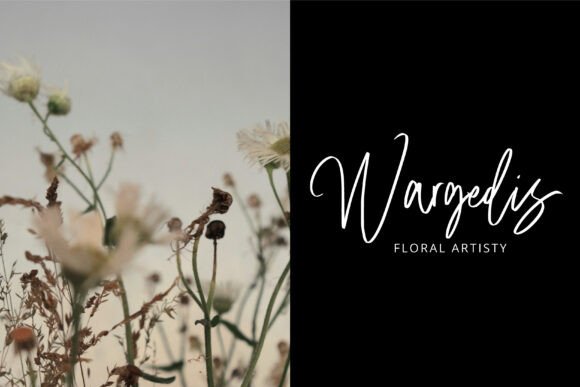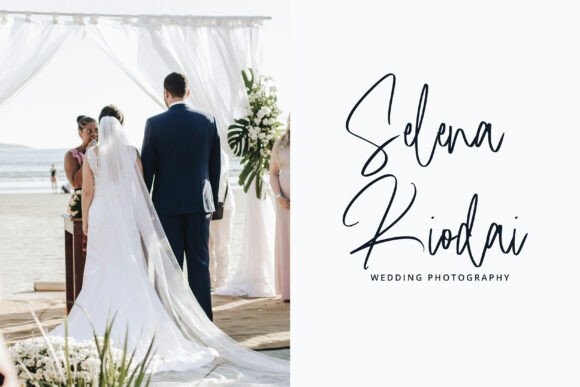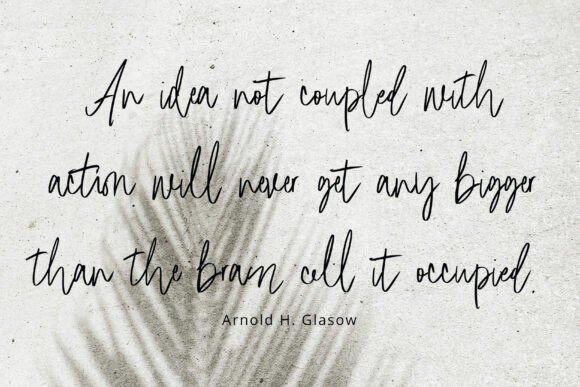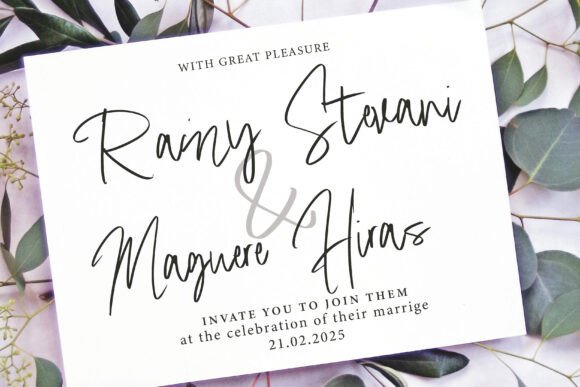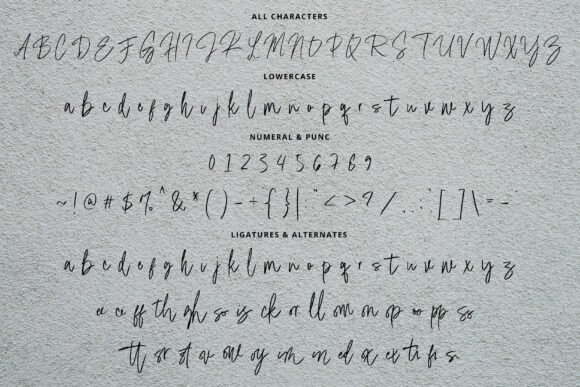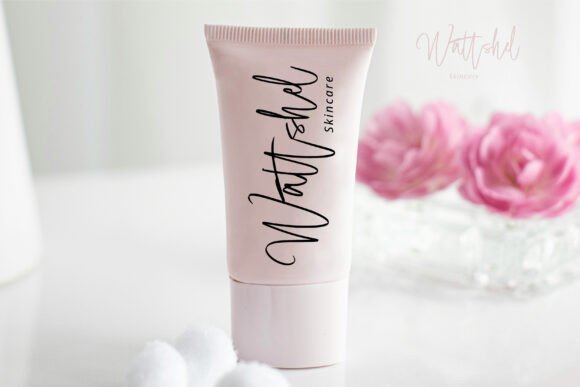
Introduction to Masha Signature Font
Have you ever been browsing through your favorite design blogs, only to stumble upon a beautifully crafted logo or invitation that instantly sparks inspiration? For designers, these moments are what drive us to push the boundaries of creativity and deliver exceptional results. One such design resource that has been making waves in the creative community is the Masha Signature Font – a refined, elegant script font that exudes sophistication and charm.
Whether you’re working on a high-end branding project or a personal signature, the Masha Signature Font is an invaluable design tool that can elevate your work to new heights. Its flowing, handwritten style makes it perfect for a wide range of creative projects, from wedding invitations to stylish social media graphics. And the best part? This beautiful font is available for free download, making it a valuable addition to any designer’s toolkit.
Key Features of Masha Signature Font
- High-quality, cursive script font designed for creative projects, ideal for use as a design resource.
- Comes with a transparent background, making it easy to layer over other design elements.
- Available in a single size, but highly scalable to suit various design needs, from small text to large titles.
- Features a unique, elegant design that is perfect for adding a touch of sophistication to your design project.
- Supports a wide range of languages, making it a versatile design resource for international projects.
- Designed with a high-resolution (300 DPI) to ensure crisp and clear display, even at larger sizes.
Honest Review: Masha Signature Font
I recently had the opportunity to work with the Masha Signature Font and I must say, I was impressed with its quality. As a designer, I’m always on the lookout for high-quality design resources to enhance my creative projects. The Masha Signature Font definitely delivers.
- ✨ Unique and elegant design style that adds a touch of sophistication to any project
- ✨ High-quality design that’s perfect for branding, logos, and other creative projects
- ⚠️ Limited font styles available, which may limit its versatility in certain projects
- ⚠️ Some users may find the font size a bit too small for certain applications
Overall, I was pleased with the Masha Signature Font and would recommend it to designers looking for a high-quality, unique font to enhance their creative projects. With its transparent background and elegant design style, it’s a valuable addition to any design resource collection.
The Masha Signature Font is ideal for use in logos, branding materials, and other design elements. Its unique design makes it perfect for use in a variety of creative projects, from business cards to website headers.
Alternatives to Masha Signature Font
Aura Script
Aura Script is a high-quality, elegant script font perfect for creative projects that require a touch of sophistication. It’s available for free download with a transparent background, making it ideal for use on social media and design resources. When to use: wedding invitations, luxury branding, and high-end packaging. Compared to Masha Signature Font, Aura Script has a more refined and delicate feel, making it suitable for more formal occasions.
Great Vibes is a fun, modern script font that’s perfect for creative projects that require a playful touch. It’s free to download and features a transparent background, making it easy to use on design resources and social media. When to use: food blogs, fashion brands, and event promotions. Compared to Masha Signature Font, Great Vibes has a more carefree and youthful feel, making it ideal for projects that require a fun and energetic vibe.